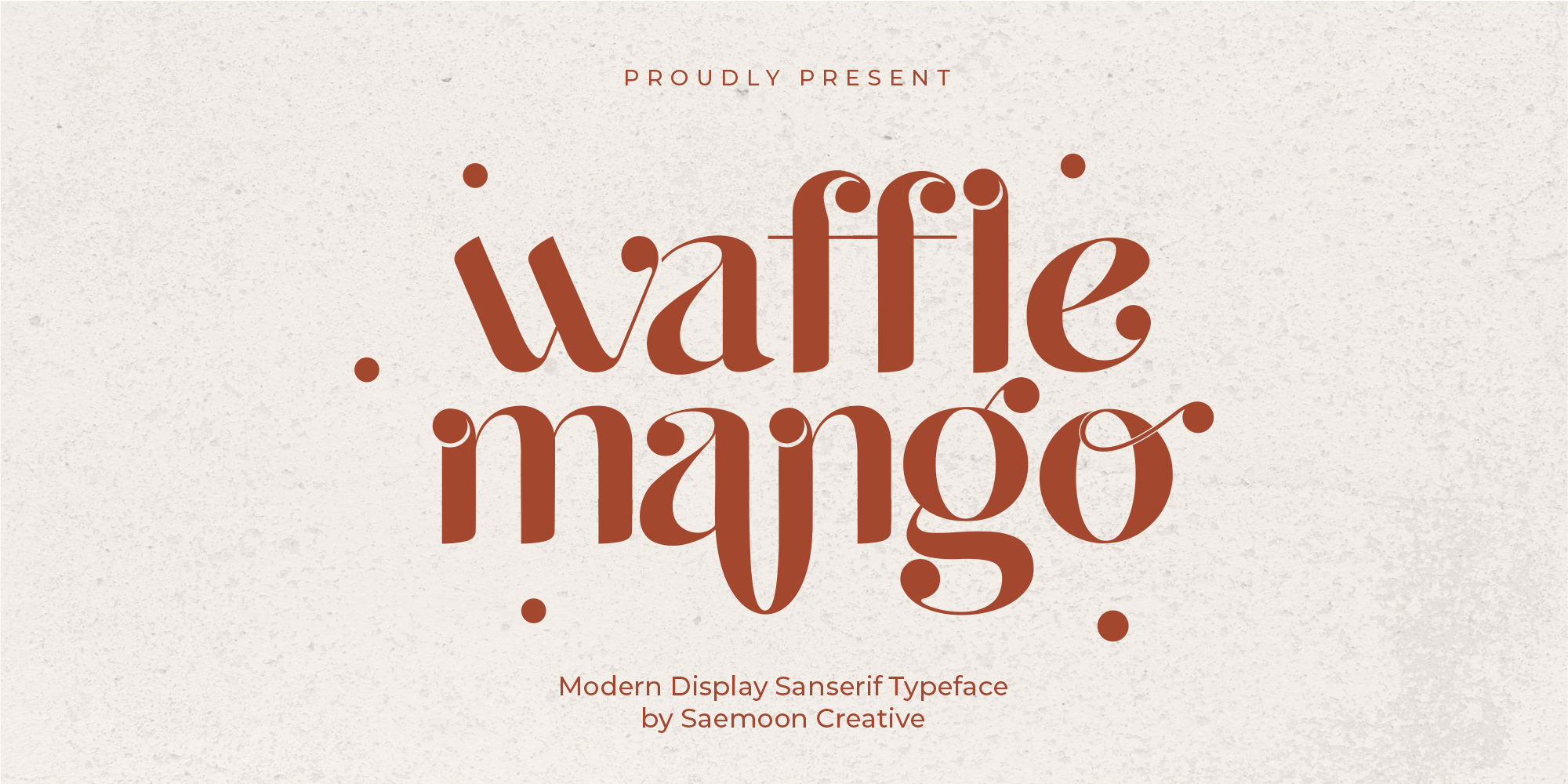
Looking for a playful and vibrant typeface that adds a splash of tropical fun to your projects? Waffle Mango Font Free Download is perfect for food packaging, summer event flyers, children’s products, and branding that calls for a fresh, fruity vibe. Its quirky shapes and friendly curves bring energy and warmth to any design.
Whether you’re creating logos, posters, or product labels, Waffle Mango Font Free Download adds a fun and tropical flavor to your typography.